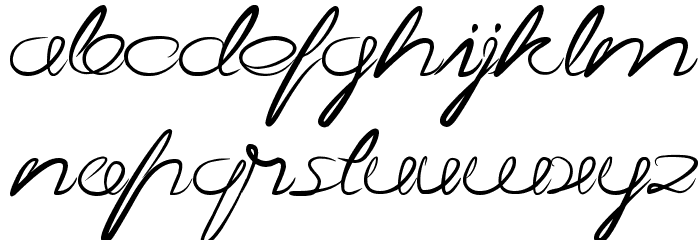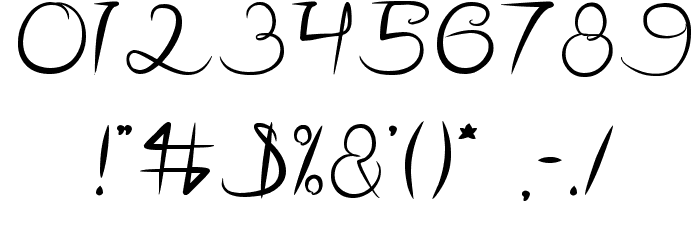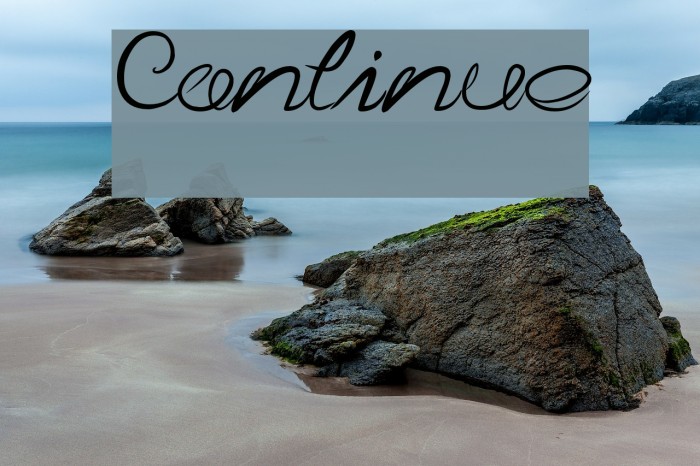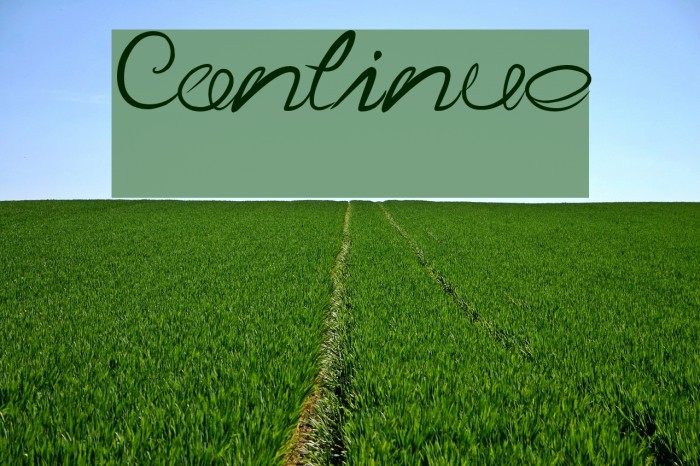
Continue Font
This font features a fluid, cursive style with elegant loops and swirls, reminiscent of traditional calligraphy. The uppercase letters are characterized by their graceful curves and flowing lines, while the lowercase letters maintain a consistent, connected script. The numerals are distinct and stylish, complementing the overall aesthetic. Special characters are creatively designed, adding a unique flair to the font. The strokes vary in thickness, providing a dynamic and lively appearance, making it suitable for artistic and decorative purposes.
A fluid, cursive font with elegant loops and swirls, ideal for decorative use.